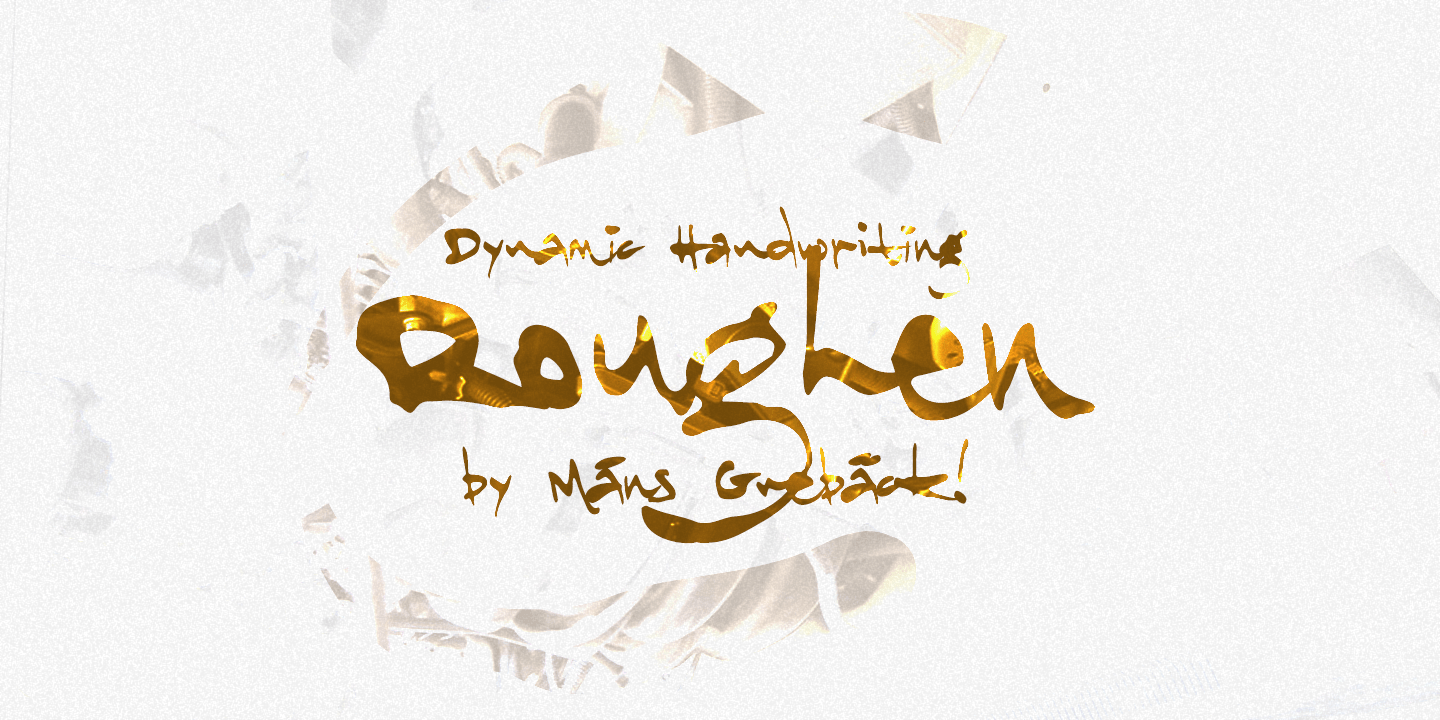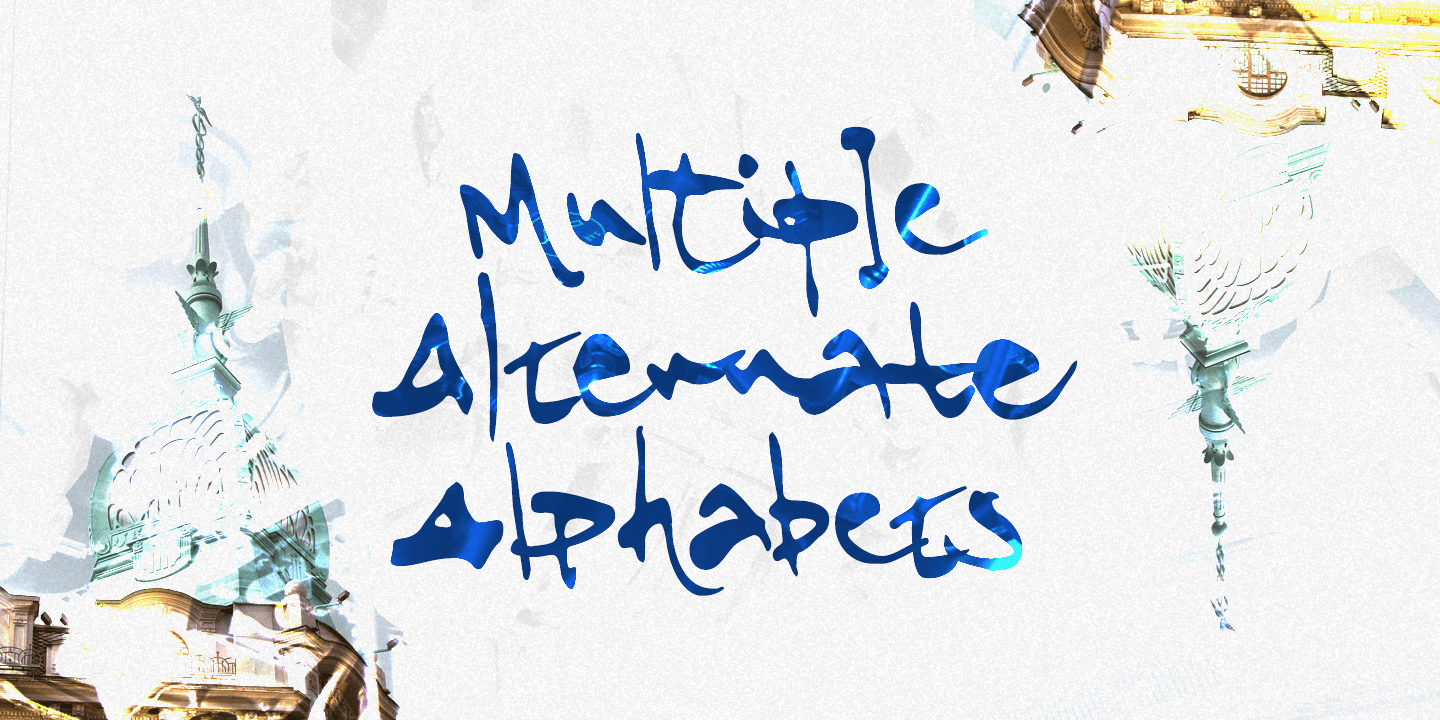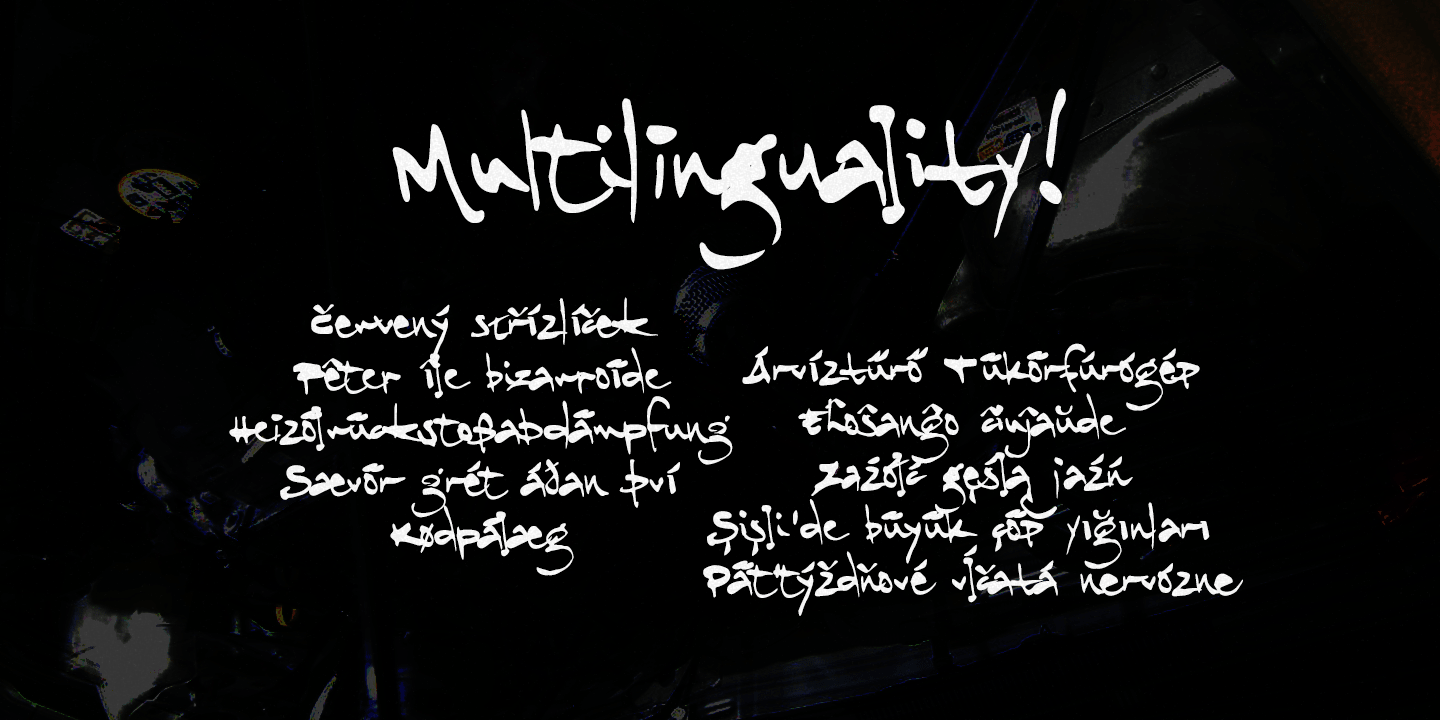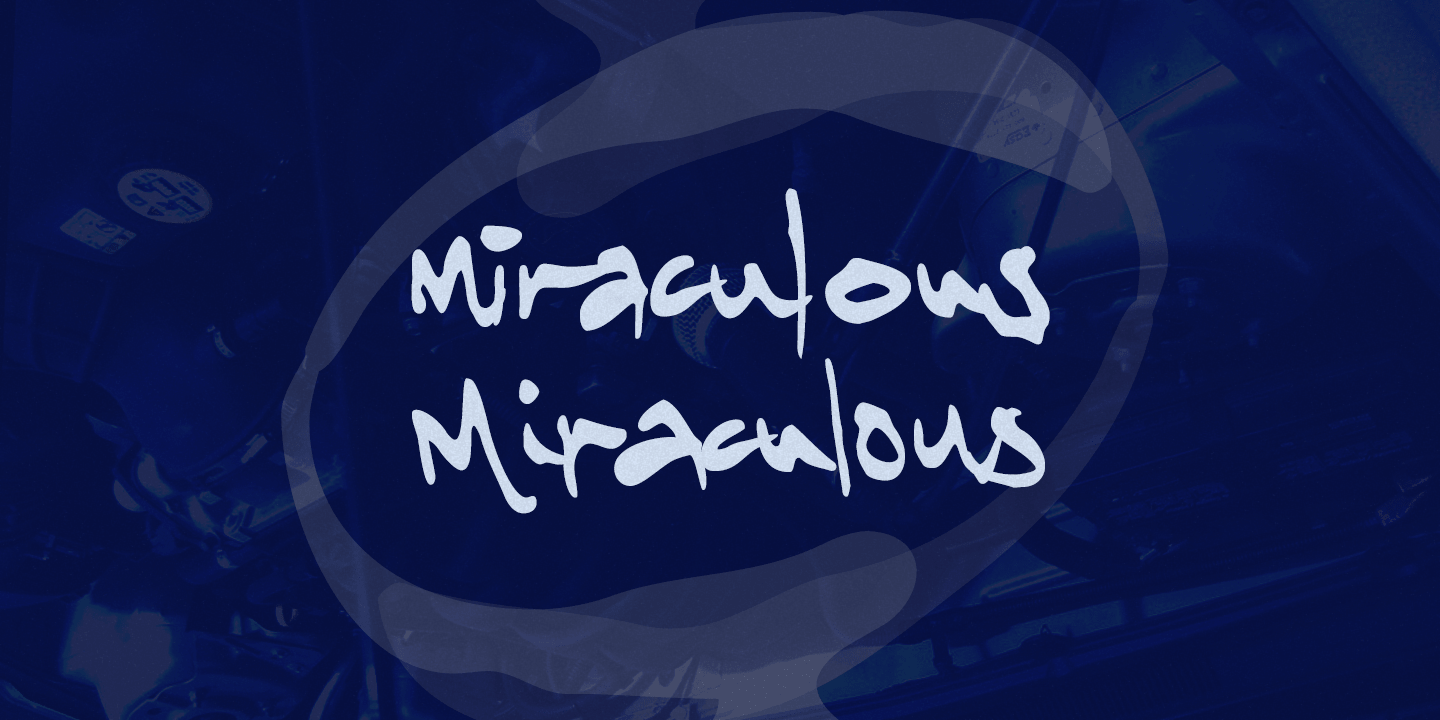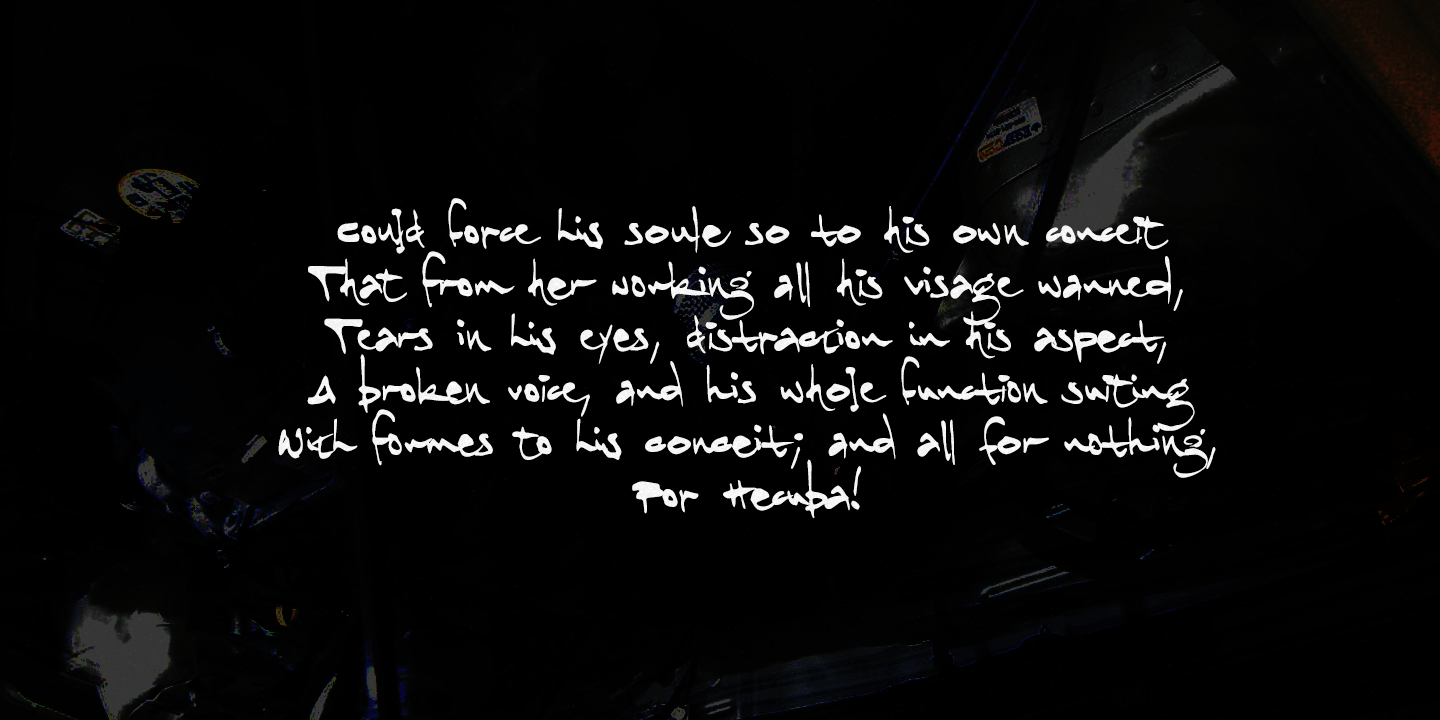
Roughen
Roughen is a fast handwriting typeface.
It was drawn and created by Måns Grebäck between 2017 and 2020.
Roughen has a rugged and active style, designed with a wet calligraphy pen.
It contains multiple alphabets, automatically applied with contextual alternates to simulate the variation of handwriting, or manually with stylistic alternates.
The font is multilingual and contain all characters you’ll ever need, including all punctuation and numbers.